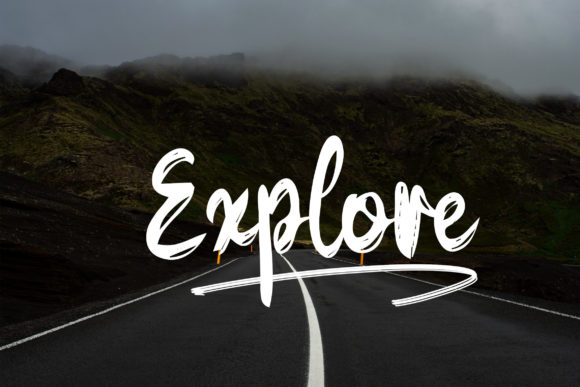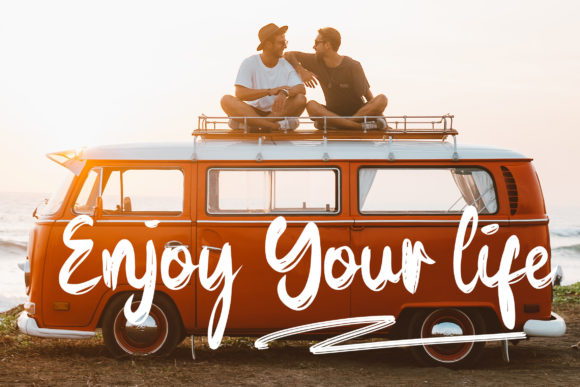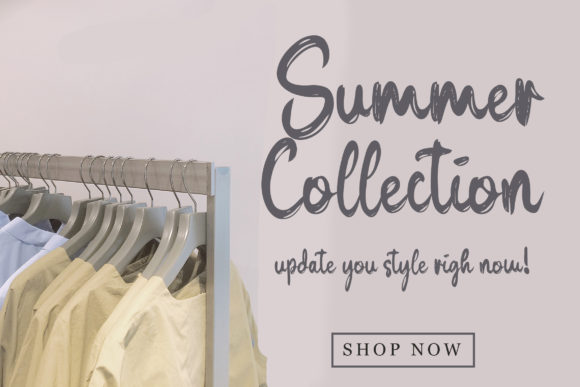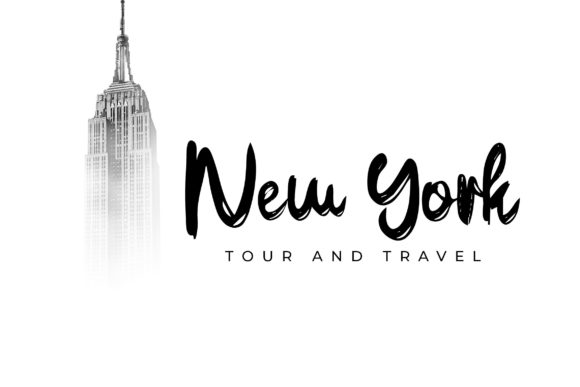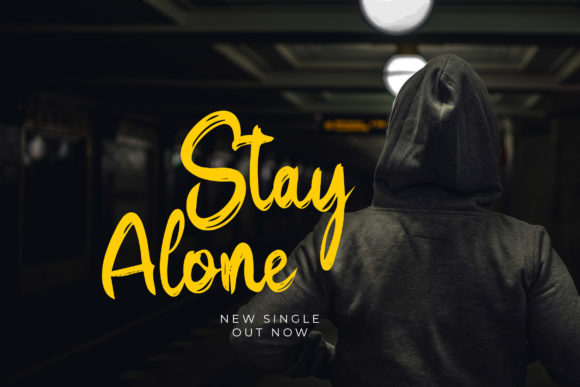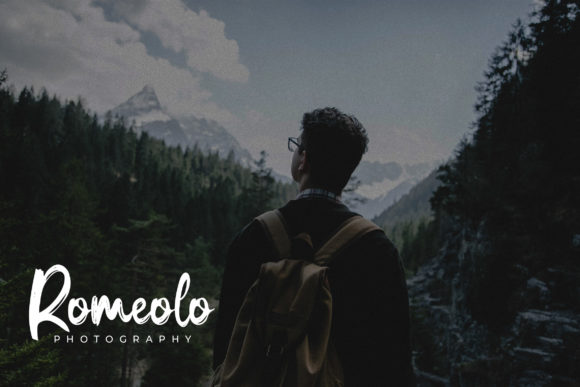
Unleash Your Creativity with the Adventures Font
Do you ever find yourself in the midst of a creative block, staring blankly at your screen, searching for that perfect font to bring your design to life? I’m sure we’ve all been there. But what if I told you that there’s a font that can transport you to a world of elegance and sophistication, making your design dreams a reality?
Enter the Adventures Font, a stunning, chic, and brushed script font that’s perfect for fashion branding or editorial designs. With its smooth curves and sophisticated vibe, this font is sure to elevate your projects to the next level. Whether you’re a seasoned designer or just starting out, the Adventures Font is a valuable addition to your toolkit, offering endless possibilities for creativity and self-expression.
Adventures Font Key Features
- Unique Characteristics: The Adventures font features a bold, adventurous feel with unique letterforms and swashes, perfect for titles, headings, and other display text.
Adventures Font Review
As a designer, I’ve had the chance to work with a wide range of fonts, and I’m excited to share my thoughts on the Adventures Font. Here’s the good, the bad, and everything in between.
- Unique and Playful: The Adventures Font has a fun, adventurous feel to it, making it perfect for projects that need a touch of whimsy.
- High-Quality Details: The font’s design is detailed and well-crafted, with a focus on creating a sense of movement and energy.
- Good Legibility: The font is clear and easy to read, even at smaller sizes, which is a must for any font.
- Limited Versatility: While the font is great for projects that need a playful touch, it may not be the best choice for more formal or professional projects.
- May Not Translate Well: The font’s unique design may not translate well to certain mediums, such as small text sizes or digital displays.
The Adventures Font is a solid choice for designers looking to add a touch of adventure and whimsy to their projects. While it may have some limitations, it’s a great option for the right projects. With its high-quality details and playful feel, it’s sure to add some excitement to any design.
Getting the Most Out of Adventures Font
To get the most out of Adventures Font, use it for titles, headings, and other emphasis text to create a visually appealing design. You can also experiment with different font sizes, colors, and styles to create a unique and eye-catching look.
Adventures Font is ideal for use in various design projects, including:
– Travel brochures and itineraries
– Outdoor and adventure-themed designs
– Children’s books and educational materials
– Travel and tourism websites and social media posts